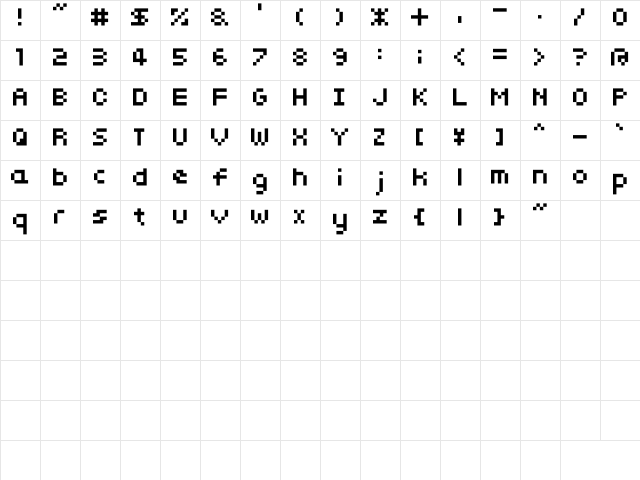
somybmp01_7 Regular
Design Context for somybmp01_7 Typeface
somybmp01_7 offers clean, dependable letterforms without strong stylistic allegiance, making it a practical choice for designers who need flexibility.